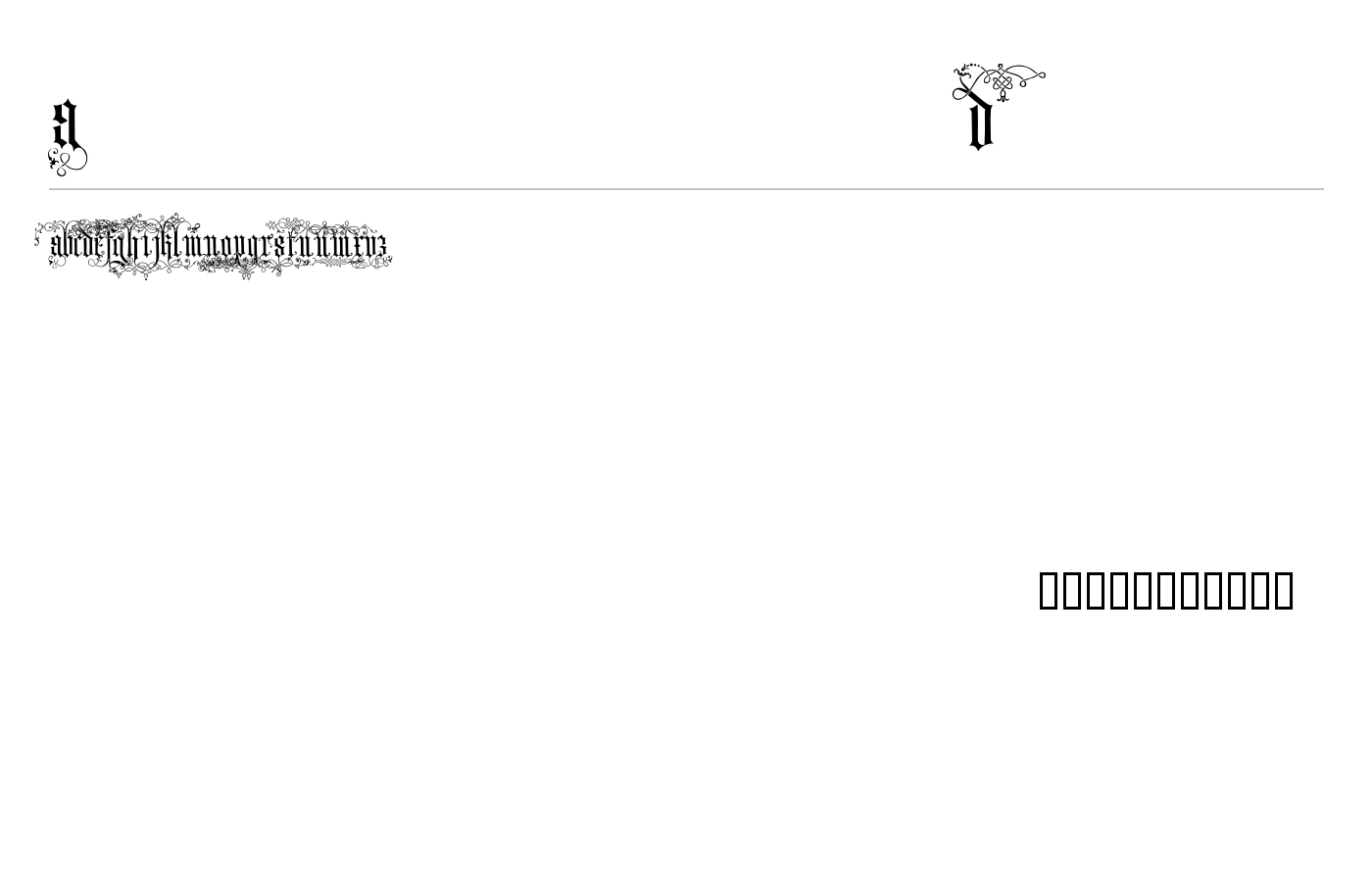
Ardenwood Demo is a highly decorative blackletter-style font characterized by intricate flourishes and a strong Gothic influence. Its dense, ornate letterforms evoke a vintage, medieval feel that works beautifully for projects seeking a historic or fantasy vibe, such as logos, posters, or editorial headlines. Best suited for display use, this font adds a dramatic and elegant touch, capturing attention with its detailed craftsmanship and classic charm.
Ardenwood Demo Font
About Ardenwood Demo Font